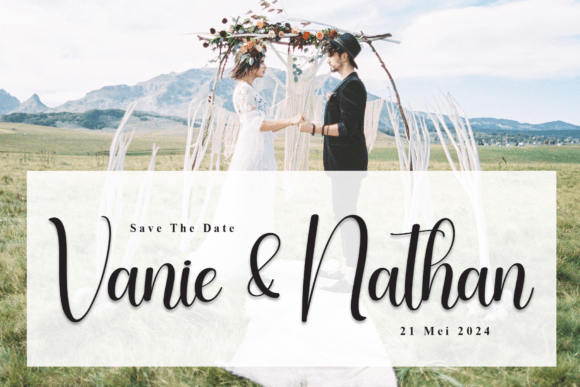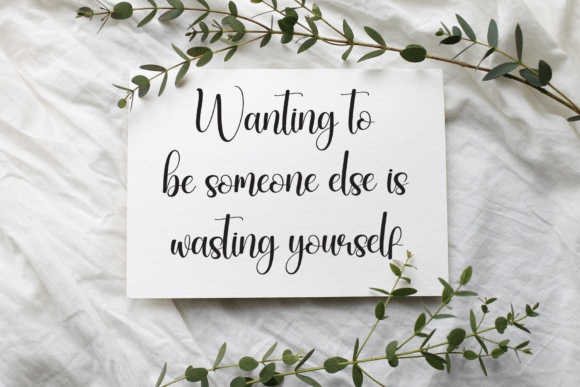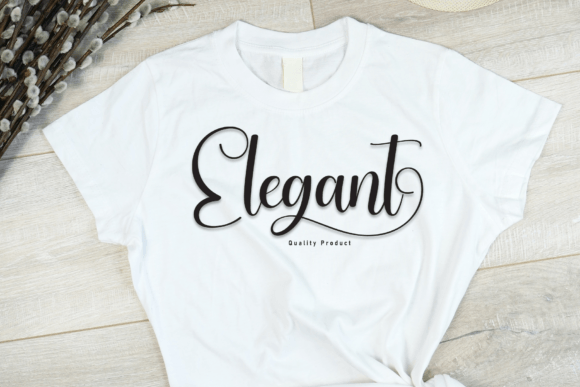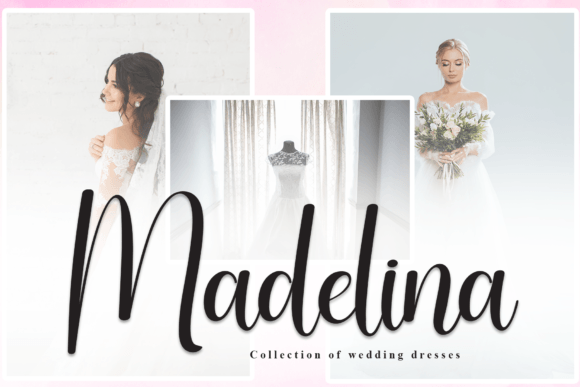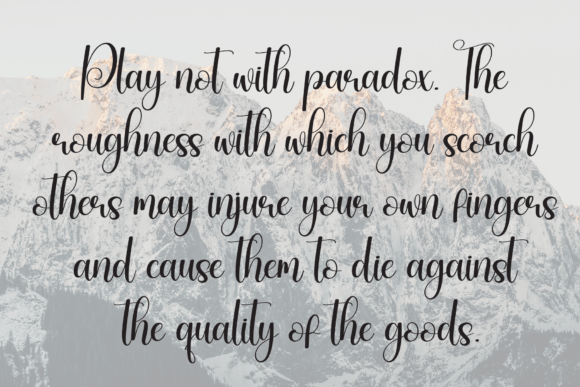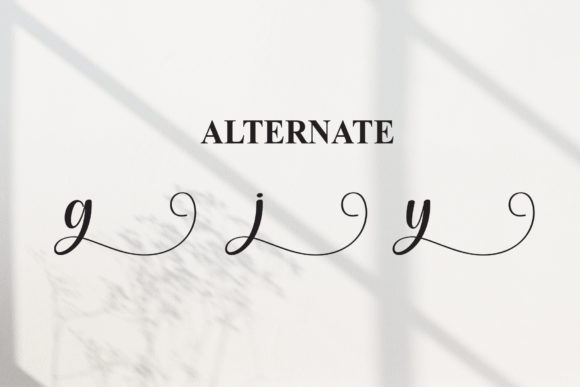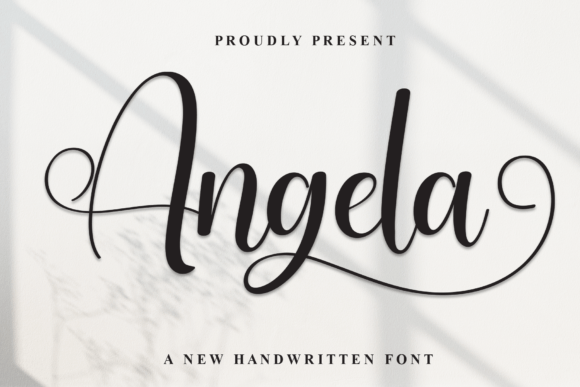
Discover the Charm of Angela Font: A Sweet and Friendly Handwritten Delight
Are you on the hunt for a font that can add a touch of warmth and personality to your designs? Look no further than Angela Font, a sweet and friendly handwritten font that’s perfect for a wide range of creative projects. With its natural and unique style, Angela Font is incredibly versatile, making it an excellent choice for designers and crafters alike.
The Perfect Blend of Sweetness and Friendliness
Angela Font is a beautifully crafted handwritten font that’s designed to bring a sense of approachability and warmth to your designs. Its sweet and friendly demeanor makes it perfect for projects that require a personal touch, such as invitations, greeting cards, and social media graphics. Whether you’re creating something for a client or for your own brand, Angela Font is sure to make your designs feel more relatable and engaging.
A Font that’s Full of Character
One of the standout features of Angela Font is its unique and natural style. Unlike some fonts that can feel stiff or overly uniform, Angela Font has a charmingly imperfect quality that makes it feel more human. Its subtle variations in letter size and spacing give it a sense of movement and energy, making it perfect for designs that need to capture the reader’s attention.
Endless Possibilities with Angela Font
The only limit to what you can create with Angela Font is your imagination! This incredibly versatile font can be used for a wide range of design projects, from:
- Signs and posters
- Digital and print advertising
Whether you’re a seasoned designer or a crafter looking to add a personal touch to your projects, Angela Font is the perfect choice. Its flexibility and charm make it an excellent addition to any design toolkit.
Why Designers and Crafters Love Angela Font
So, what makes Angela Font so popular among designers and crafters? Here are just a few reasons:
- Unique and eye-catching: Angela Font’s natural and unique style makes it stand out from more traditional fonts.
- Easy to read: Despite its handwritten nature, Angela Font is incredibly legible, making it perfect for designs that require a clear message.
- Versatile: From formal to informal, Angela Font can be used for a wide range of design projects.
- Time-saving: With Angela Font, you can create beautiful designs in no time, thanks to its extensive character set and flexibility.
Get Creative with Angela Font
Ready to discover the charm of Angela Font for yourself? Whether you’re a designer looking to elevate your brand or a crafter seeking to add a personal touch to your projects, Angela Font is the perfect choice. With its sweet and friendly demeanor, unique character, and endless possibilities, Angela Font is sure to become a favorite in your design toolkit.